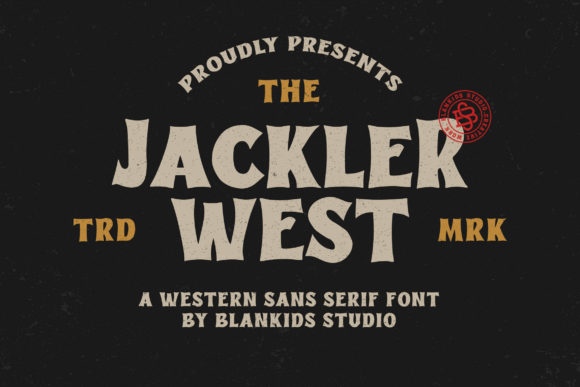
Introducing Jackler West, a Western Display Font brimming with vintage charm and a playful spirit. This remarkable creation by Blankids Studio is a font that transcends the ordinary, igniting creativity, imagination, and a world of endless fun.
Immerse yourself in the captivating allure of Jackler West, meticulously crafted with a keen eye for aesthetics. This font is a masterpiece that speaks to your artistic soul, inviting you to create designs that captivate and inspire. Whether it's a book cover that transports readers to another era or a poster that bursts with vibrancy, Jackler West is your perfect companion.
With Jackler West, you'll discover a font that adapts like a chameleon to a myriad of projects. Its versatility knows no bounds, transforming packaging into works of art, merchandise into must-have items, and logotypes into unforgettable icons. From the rugged charm of the Wild West to the whimsical flair of a carnival, Jackler West captures the essence of every theme, adding a touch of nostalgia and lightheartedness that resonates with audiences.
Stand out from the crowd and make a statement with Jackler West. Its vintage-inspired lines and playful curves weave a tale of adventure, individuality, and boundless creativity. Unleash your imagination and let Jackler West ignite your designs, propelling them to new heights of visual impact and emotional connection. Join the creative revolution and embrace the magic of Jackler West today!